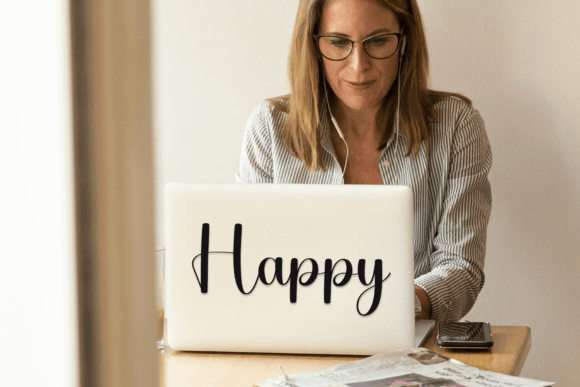
January Payment Font: A Festive and Merry Typeface for the Holiday Season
The holiday season is a time for joy, giving, and celebration. As a designer, you want to capture the essence of this special time of year in your creations. That’s where the January Payment Font comes in – a festive and merry typeface that embodies the spirit of the holiday season. With its decorative elements and whimsical flair, this font is perfect for adding a touch of enchantment to your designs.
Key Features of January Payment Font
- Decorative Elements: January Payment Font features intricate decorative elements that evoke the magic of the holiday season. From snowflakes to holly leaves, these elements add a touch of whimsy to your designs.
- Whimsical Flair: This font has a playful, cursive feel that’s perfect for creating festive and fun designs. The whimsical flair of January Payment Font adds a touch of personality to your typography.
10 Creative Ways to Use January Payment Font
- Greeting Cards: Create festive holiday greeting cards with January Payment Font. The font’s decorative elements and whimsical flair make it perfect for capturing the spirit of the season.
- Gift Tags: Add a touch of magic to your gift tags with January Payment Font. The font’s intricate details and playful feel make it perfect for creating unique and personalized gift tags.
- Holiday-Themed Projects: January Payment Font is perfect for holiday-themed projects, such as Christmas party invitations, New Year’s Eve flyers, or Hanukkah greeting cards.
- Social Media Graphics: Use January Payment Font to create festive social media graphics, such as holiday-themed Facebook posts or Instagram stories.
- Logos and Branding: January Payment Font can be used to create festive logos and branding materials for businesses, such as holiday-themed packaging or promotional materials.
- Invitations: Create festive invitations for holiday parties, events, or gatherings with January Payment Font.
- Posters and Flyers: Use January Payment Font to create eye-catching posters and flyers for holiday events, sales, or promotions.
- Digital Art: January Payment Font can be used to create beautiful digital art, such as holiday-themed illustrations or typographic compositions.
- Stationery: Create festive stationery, such as holiday-themed notebooks, journals, or letterheads, with January Payment Font.
- Web Graphics: Use January Payment Font to create festive web graphics, such as holiday-themed banners, buttons, or icons.
Tips for Using January Payment Font
- Experiment with Sizes: January Payment Font looks great in a variety of sizes, from small and delicate to large and bold. Experiment with different sizes to find the perfect fit for your design.
- Play with Colors: January Payment Font can be used with a variety of colors, from bright and bold to soft and pastel. Experiment with different colors to find the perfect fit for your design.
- Mix and Match: January Payment Font can be paired with other fonts to create a unique and interesting typographic combination. Experiment with mixing and matching different fonts to find the perfect combination.
The Benefits of Using January Payment Font
- Unique and Festive: January Payment Font is a unique and festive typeface that will add a touch of enchantment to your designs.
- Versatile: January Payment Font can be used for a variety of design projects, from greeting cards to social media graphics.